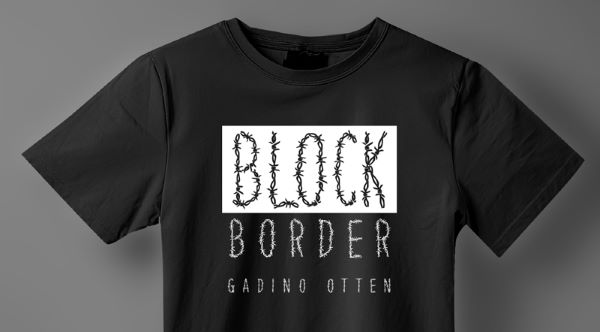
Block Border Font
Block Border Font is a Military Font by Galdino Otten Fonts — a barbed wire all-caps display typeface whose rough, strong decorative style gives it an unmistakable presence in any artwork it enters. Its harsh, angular character delivers a powerful, aggressive visual attitude that makes it one of the most versatile options for high-impact dark creative projects.
It brings genuine edge to apparel designs, military and gaming UI, death metal music covers, war-themed posters, and any creative context where tough, no-nonsense typographic force needs to dominate. Browse our full library of Free Fonts and discover more bold, powerful display typefaces from independent designers worldwide.